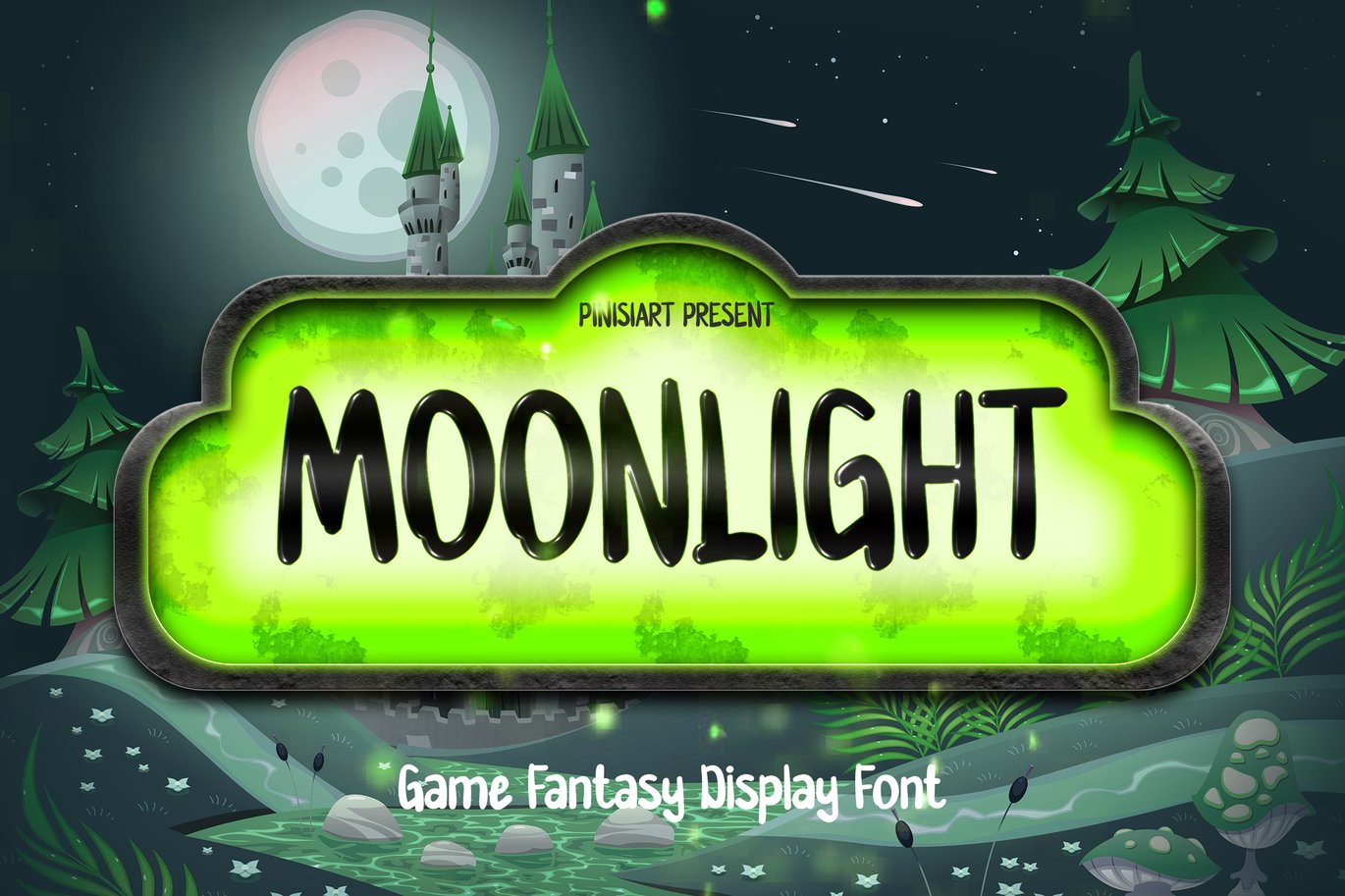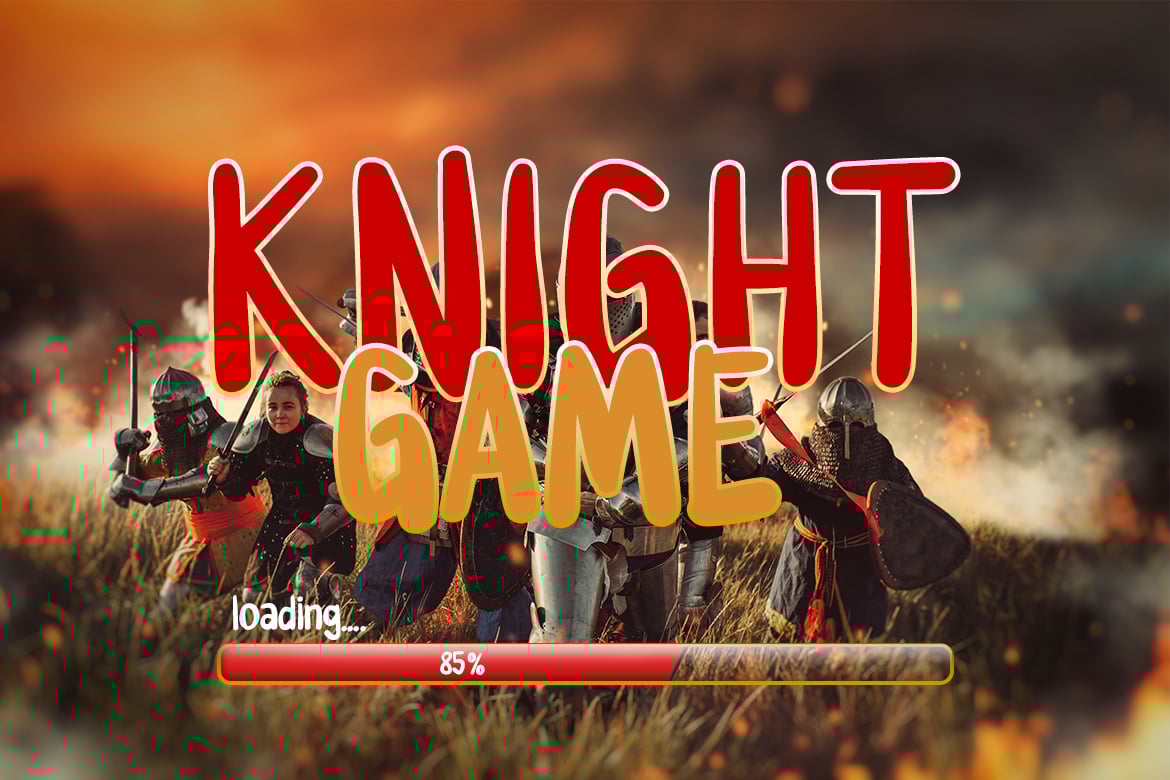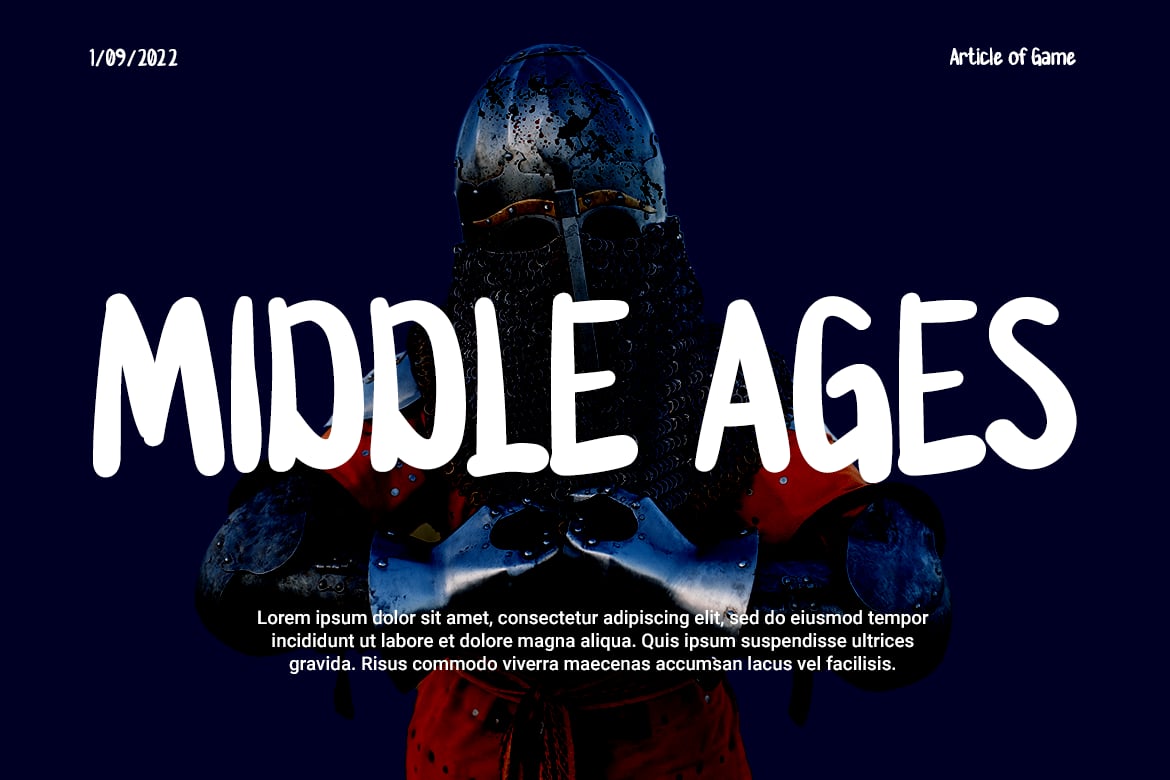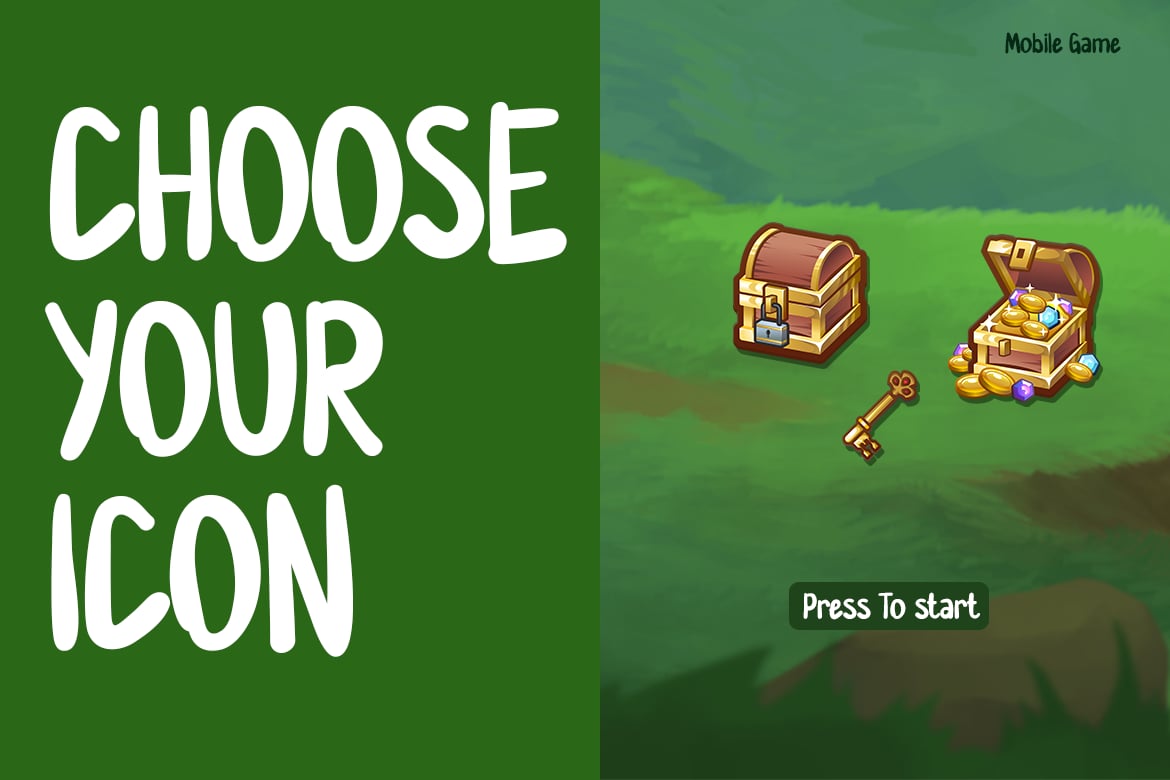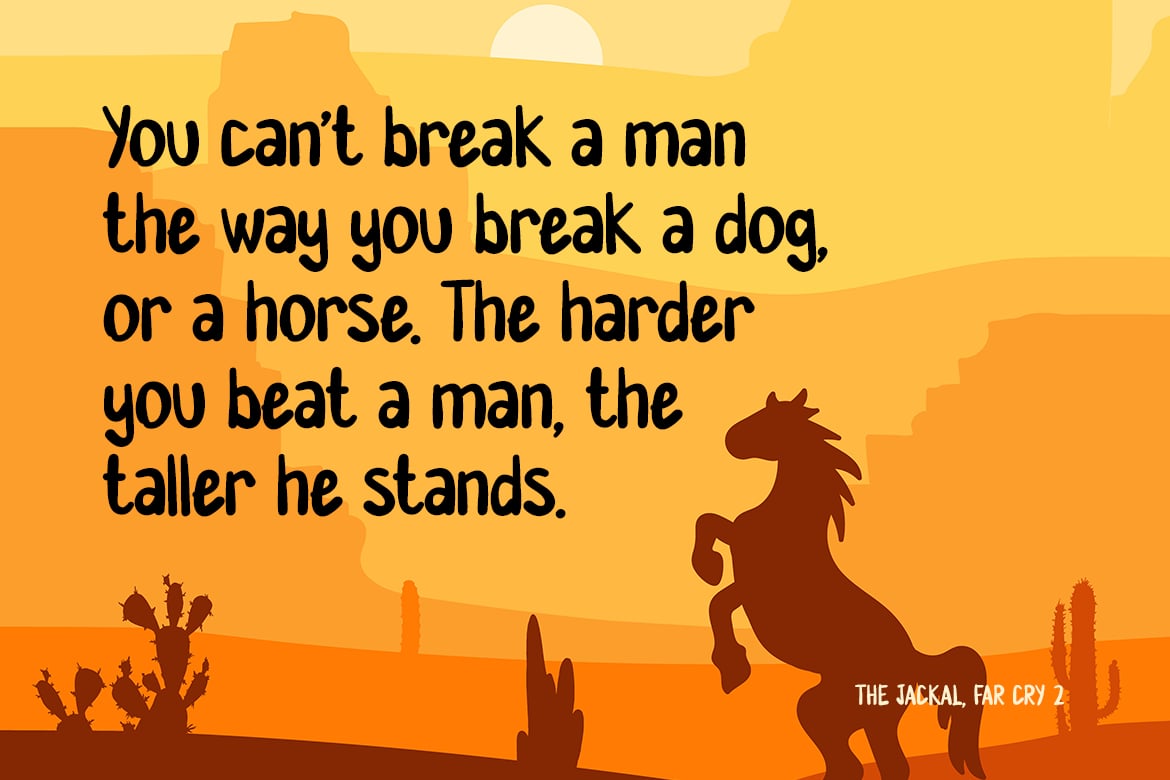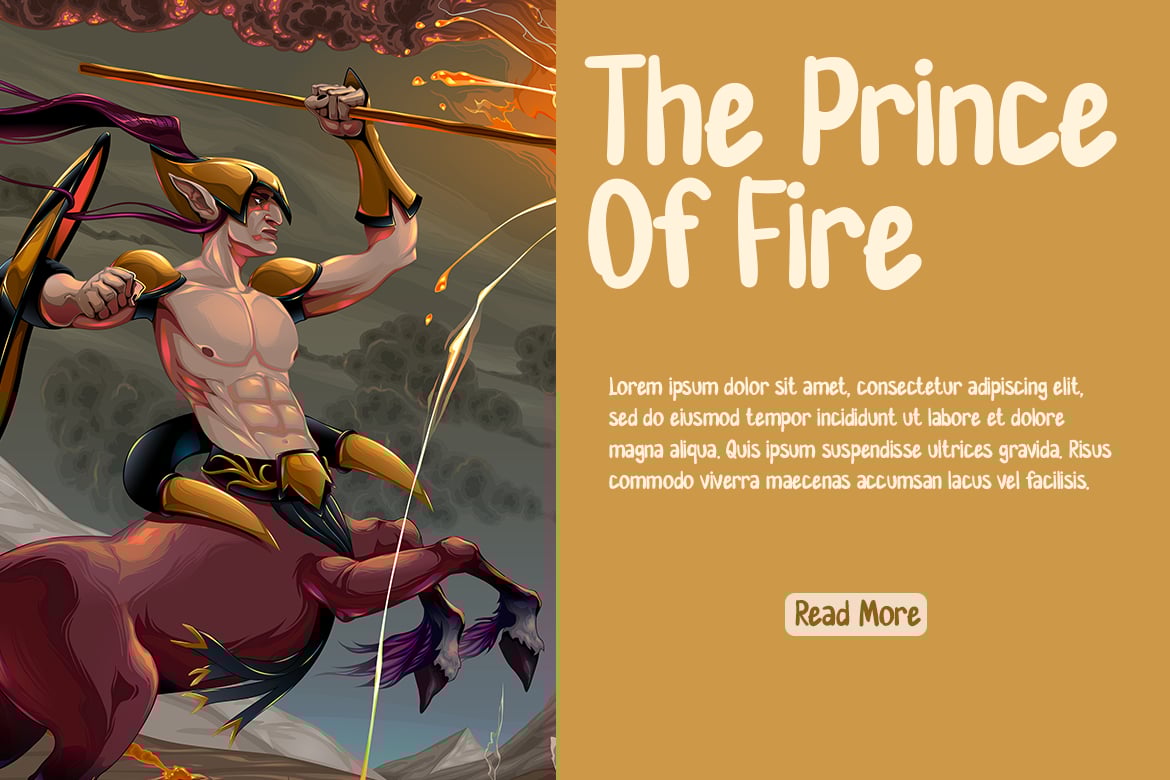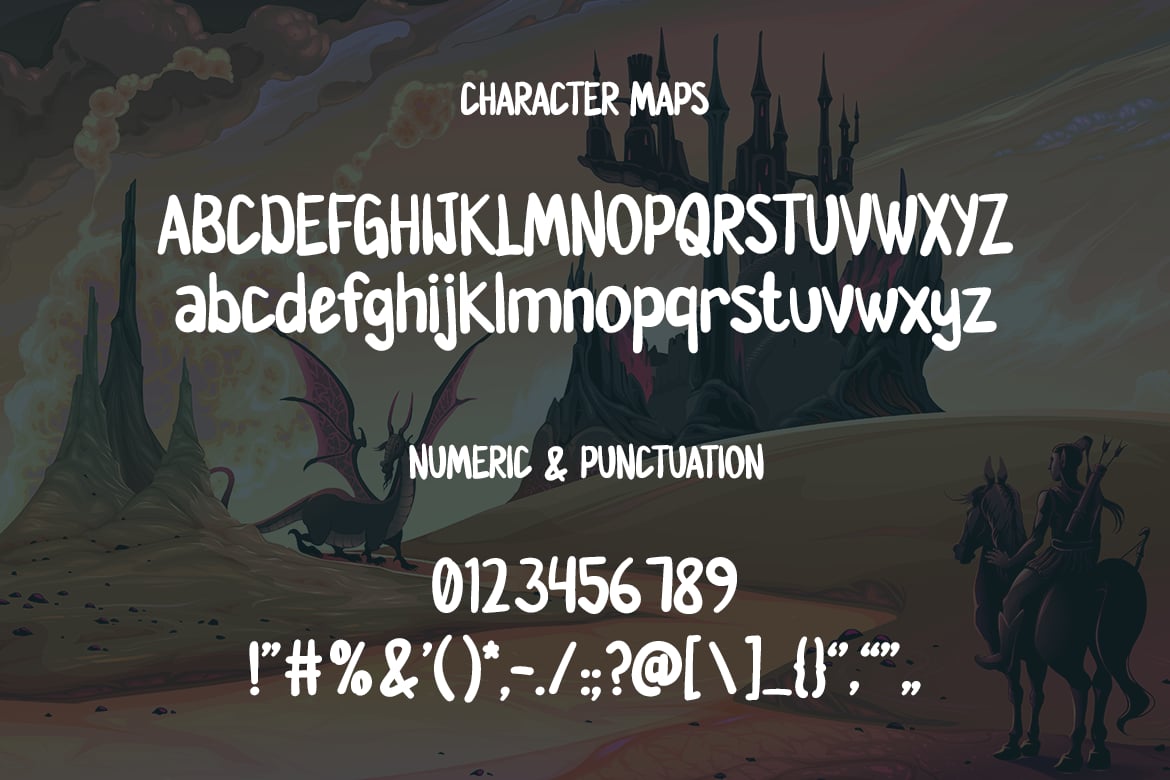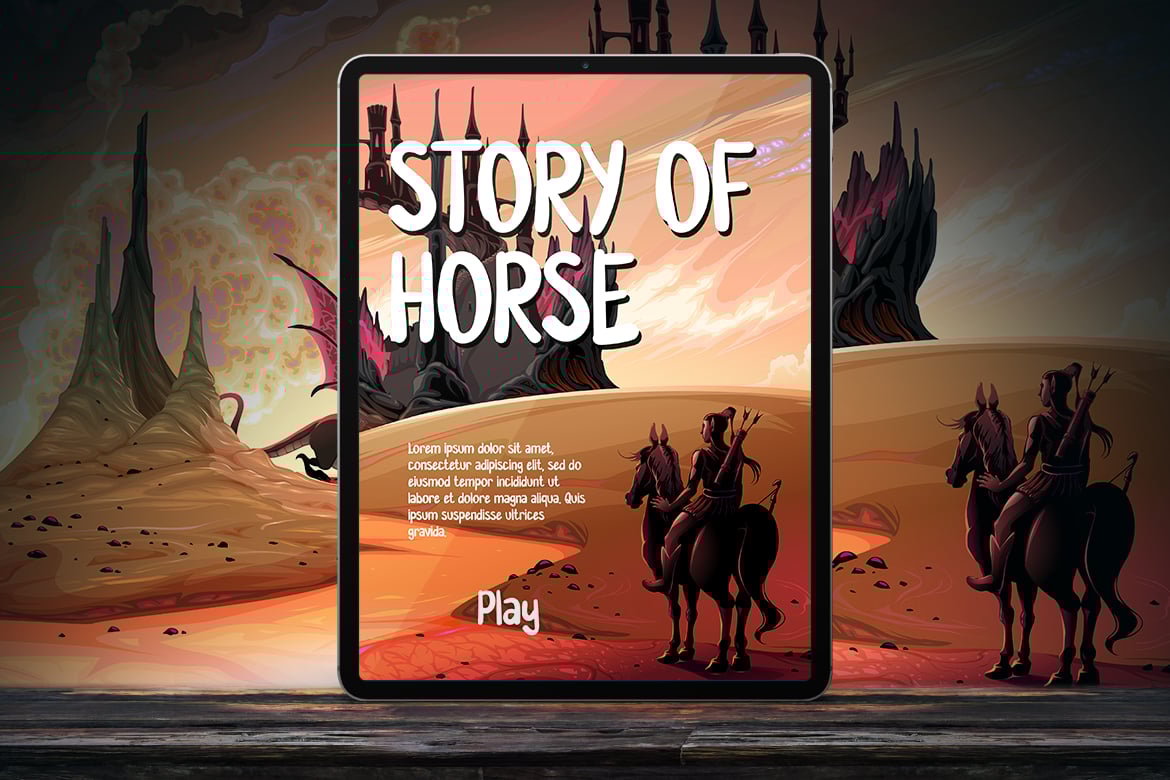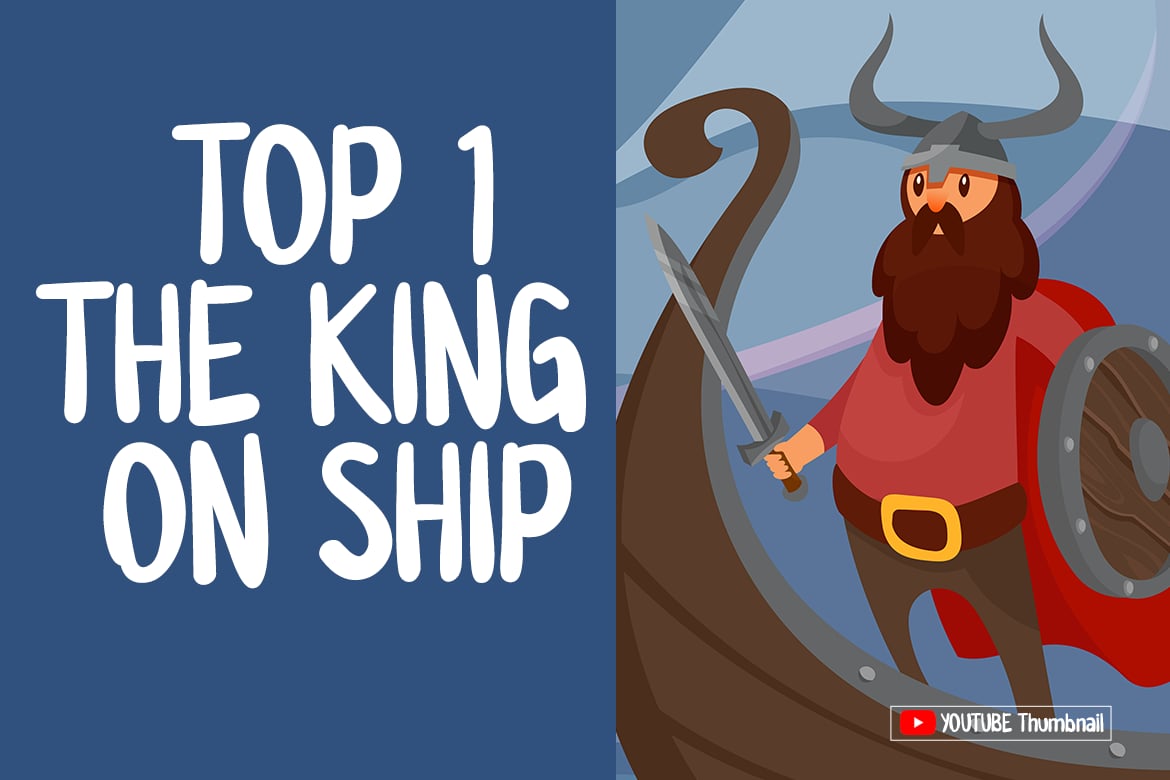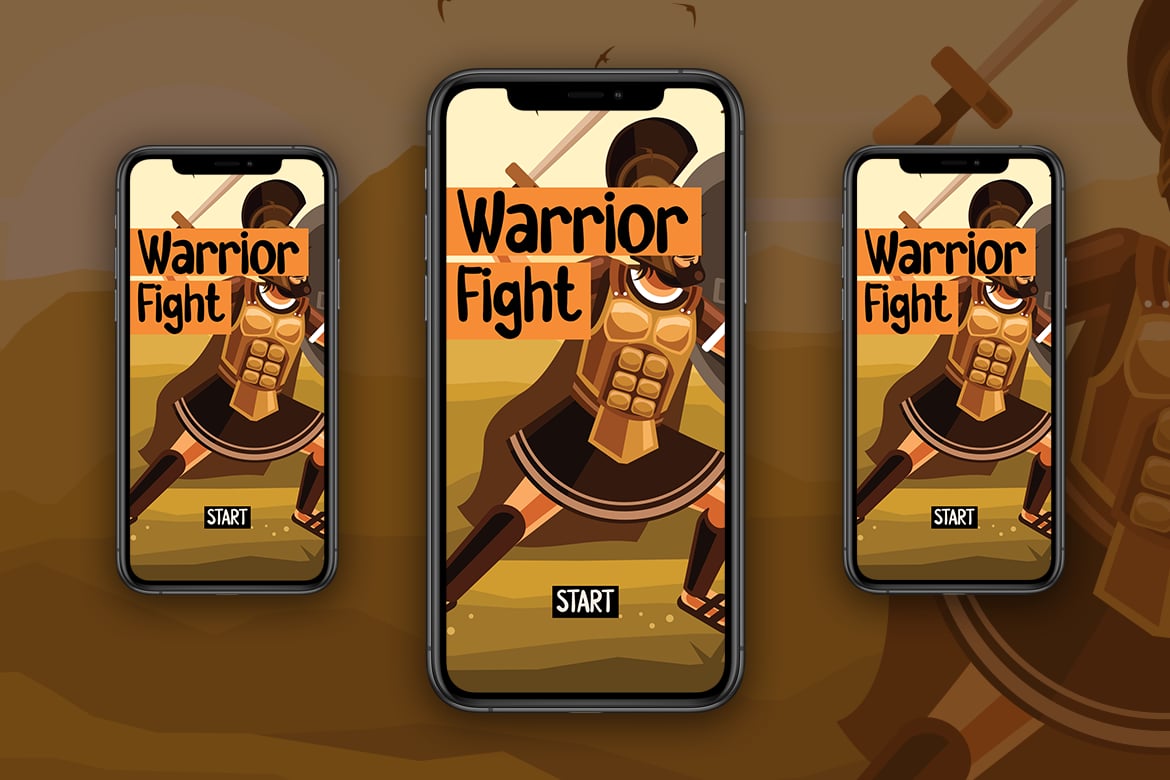
Moonlight – Game Fantasy Display Font
A font that brings magic to your front door. Its tall and funky shape suit the need of your project to be stand out from other.
Suit perfectly for magical books market, online games, teens event posters, school supplies font, posters, movie titles, youtube covers, youtube thumbnails, social media page covers, and so on…